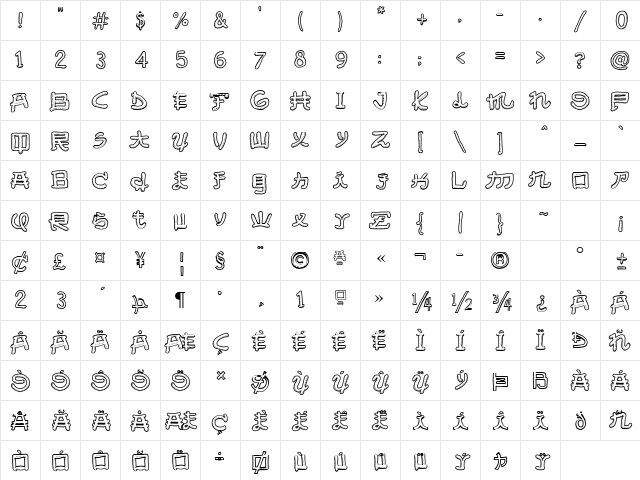
Complete Almost Japanese Smooth Regular glyph index. Displaying only characters natively supported by Almost Japanese Smooth Regular font.
Almost Japanese Smooth is a composed and adaptable typeface that performs quietly and consistently across a wide range of design contexts.